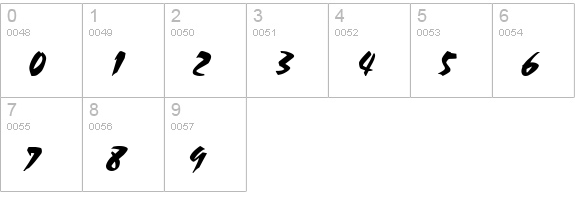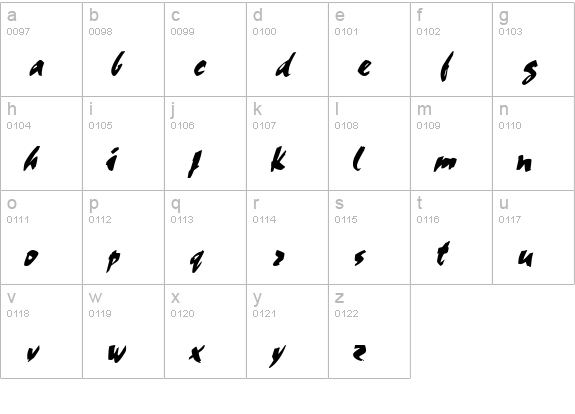
Cocoa Italic Font Details
Cocoa Italic is a distinctive, italic variant in the Cocoa typeface family \xE2\x80\x94 well suited to design and typography projects.
Cocoa Italic font is a stylish and elegant typeface perfect for adding a touch of sophistication to your designs. Its slanted and flowing letters give off a sense of grace and modernity, making it a versatile choice for various projects. This font is ideal for use in branding, advertising, invitations, and more. The best part? Cocoa Italic font is completely free to download at FontsMarket.com. Whether you're a designer looking to enhance your creations or someone in need of a chic font for personal projects, Cocoa Italic is the perfect choice. Download it now and elevate your designs with this beautiful and versatile typeface.